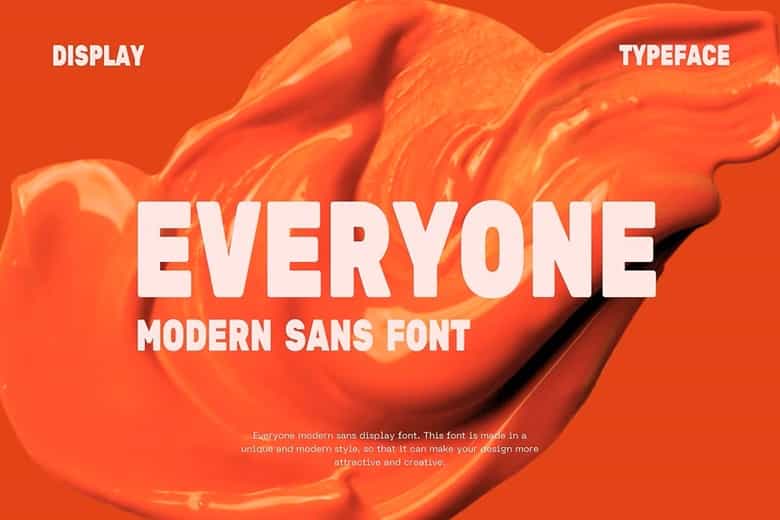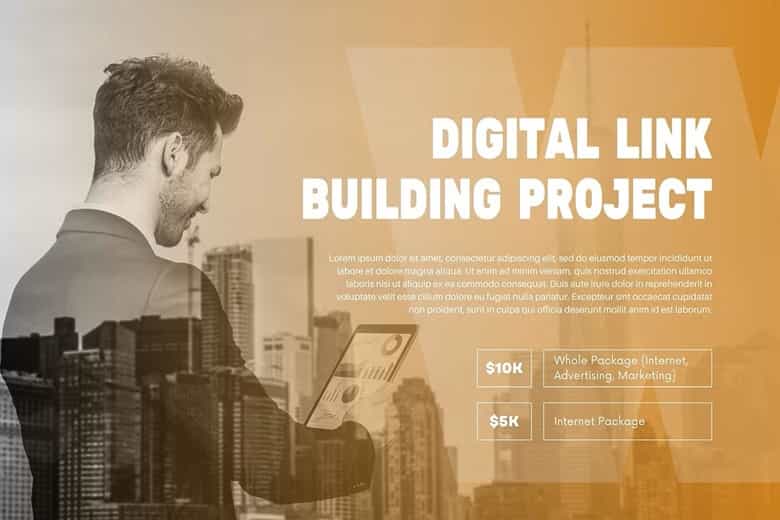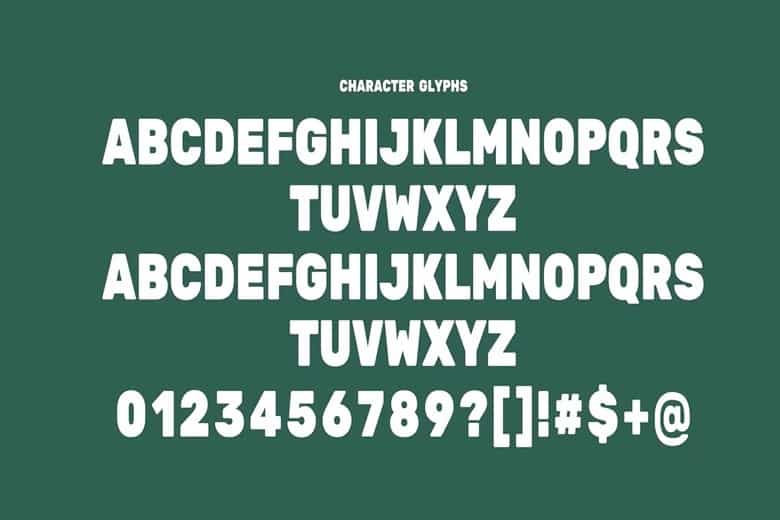
Discover Everyone Font, part of the Sans Serif collection—a versatile and unique font perfect for adding a personal touch to your projects. Download it for free and enjoy crafting designs with style, from invitations to social media posts. This font is available exclusively for personal use, giving you the freedom to create without limits. Unlock your creativity with Everyone Font today!
Everyone is a new modern sans serif typeface with elegant style this is perfect for branding, logos, invitation, magazines, product packaging and more.